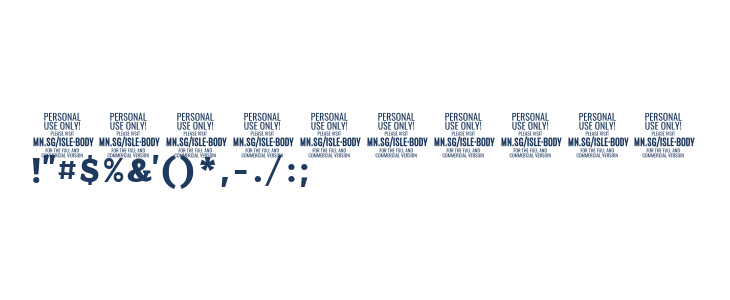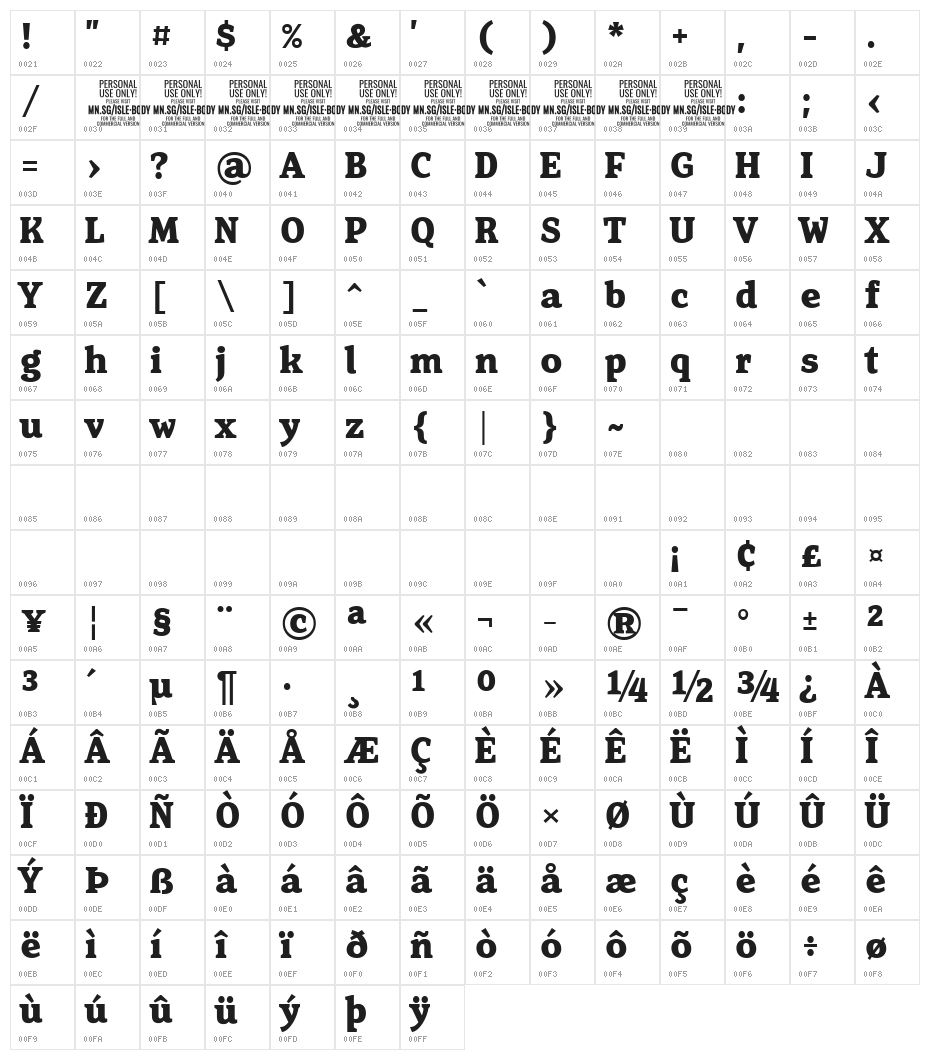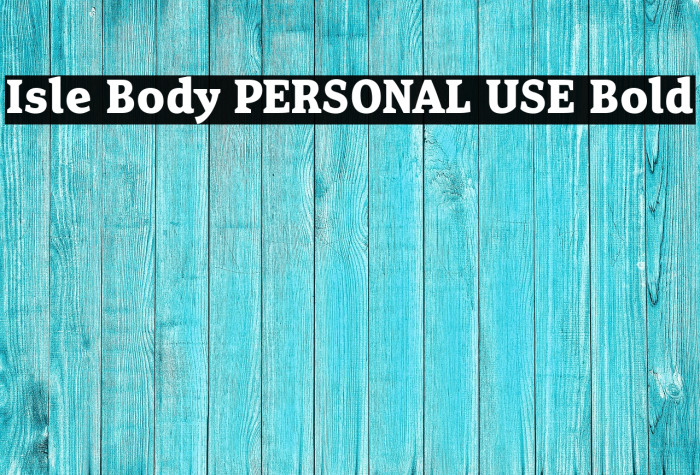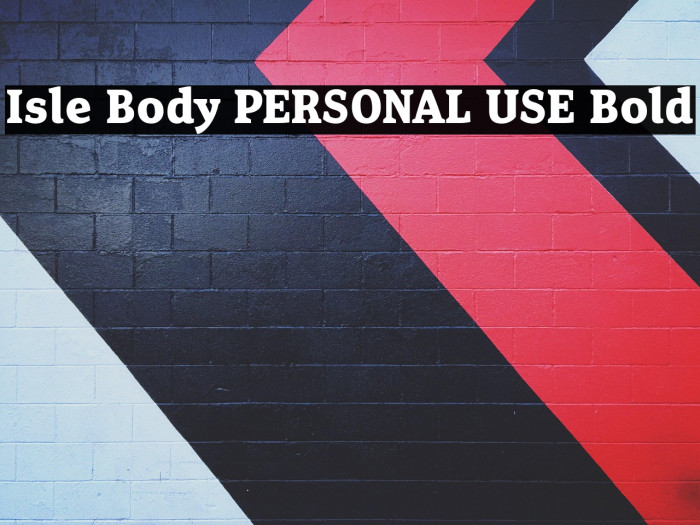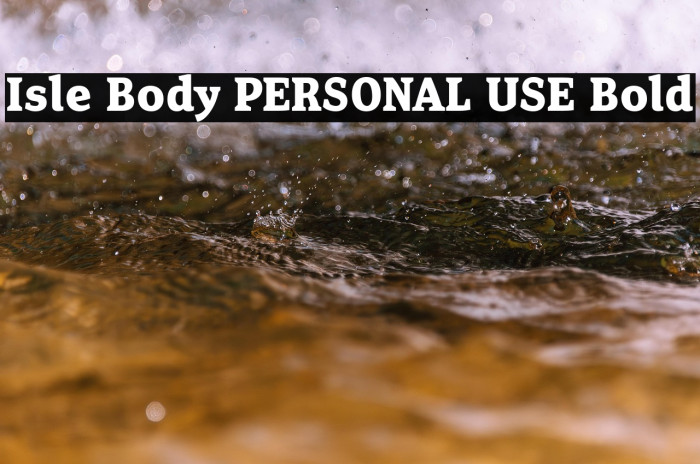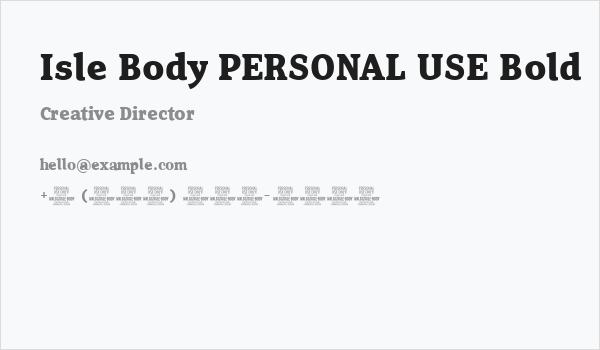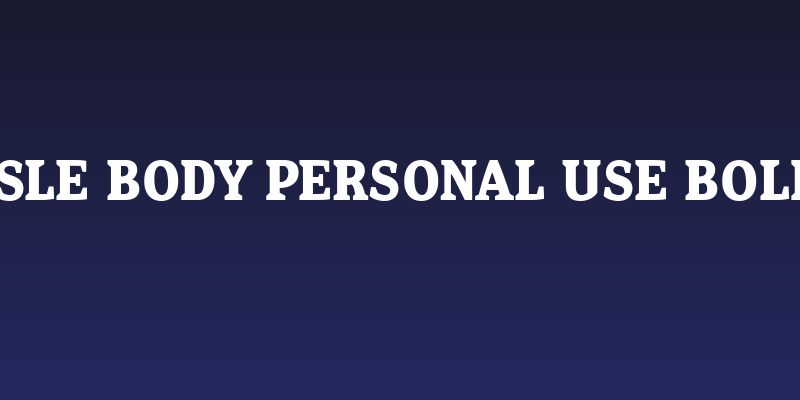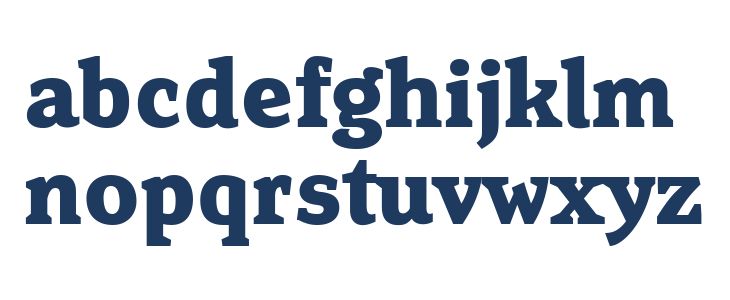
Isle Body PERSONAL USE Bold Font
Isle Body PERSONAL USE Bold Description
This font features a bold and robust design, characterized by thick, strong strokes and a commanding presence. The uppercase letters are particularly striking, with a uniform height and width that convey a sense of stability and strength. The lowercase letters maintain this boldness while offering a slightly softer appearance, making them versatile for various uses. The numerals and special characters are equally bold, ensuring consistency across all text elements. The overall style is modern yet timeless, suitable for making a strong visual impact.